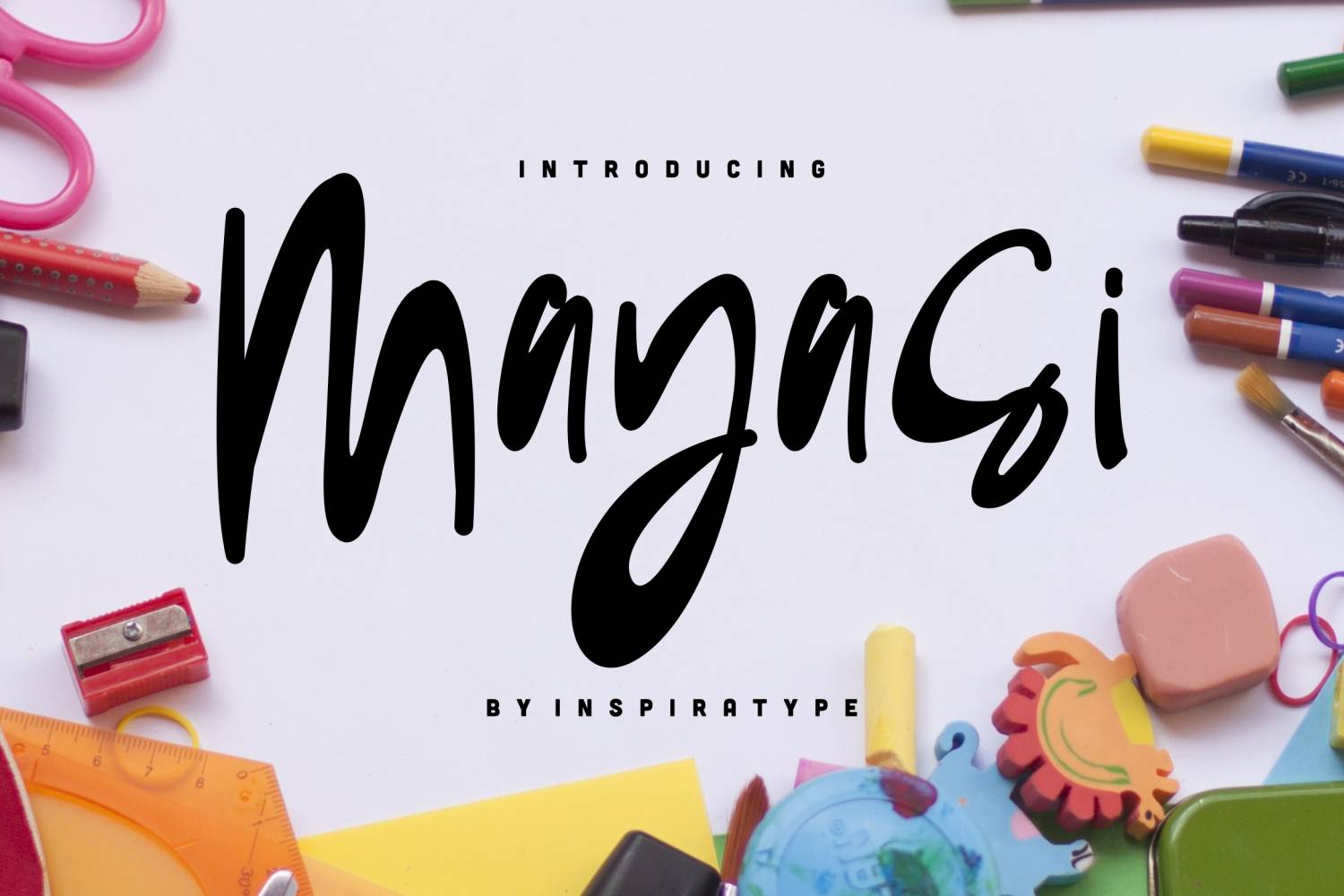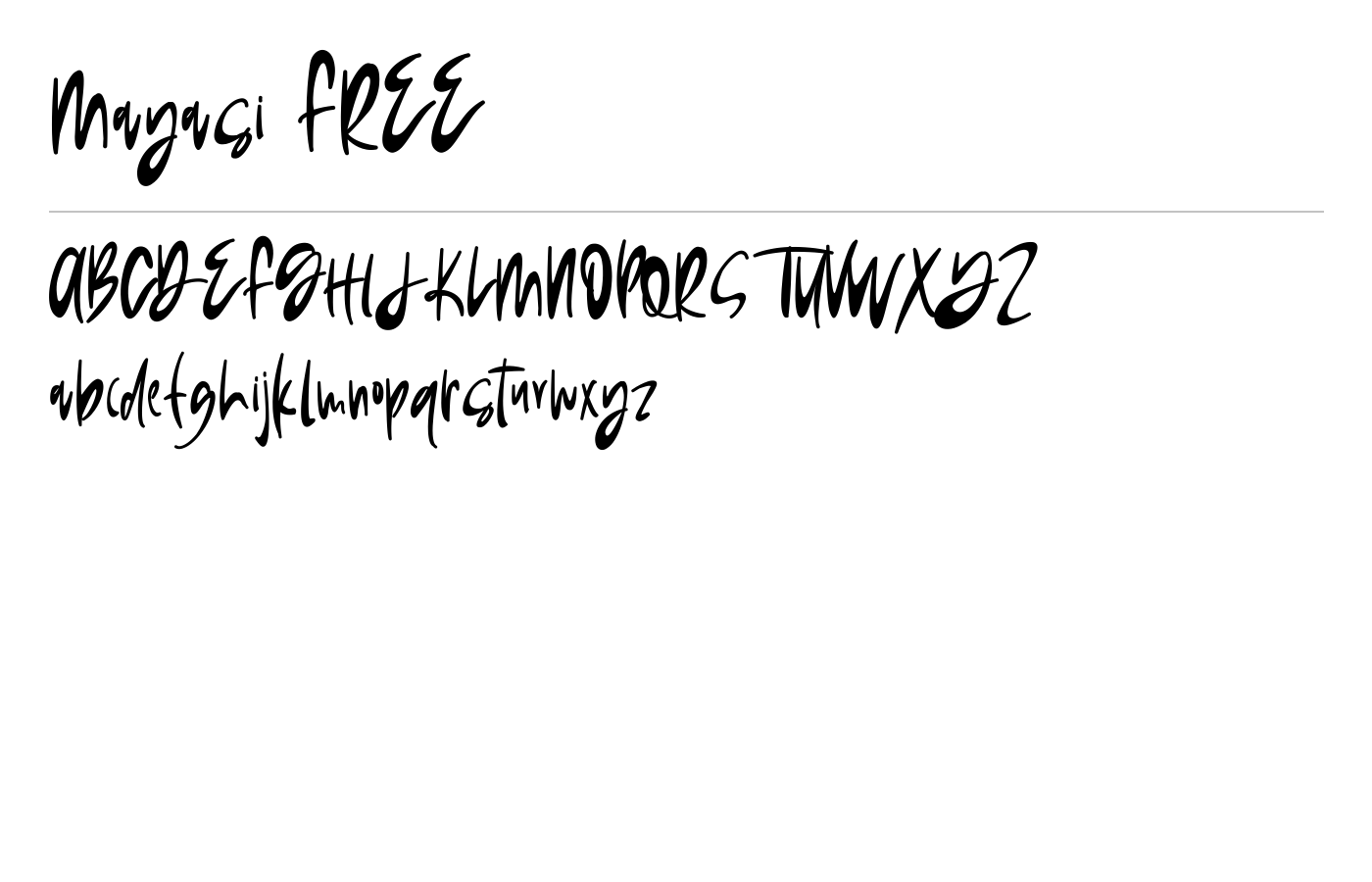
Mayasi is a playful and dynamic handwritten script font with a lively, casual feel. Its uneven strokes and varying thickness create an energetic and personal touch, making it perfect for creative projects, informal branding, and eye-catching headlines that want to convey friendliness and originality. This font works well in designs that need a warm, handwritten vibe, such as invitations, social media graphics, and lifestyle branding.
Mayasi Font
About Mayasi Font
| Font family | Mayasi Font |
| Designer | Inspiratype |